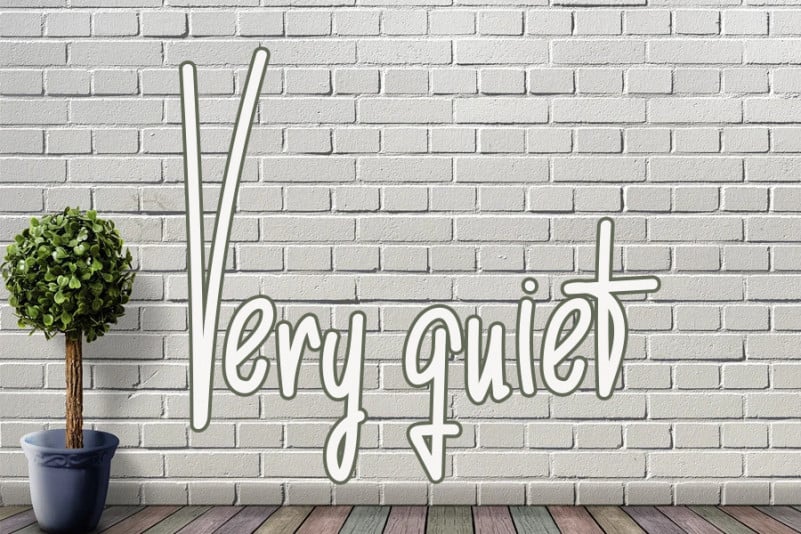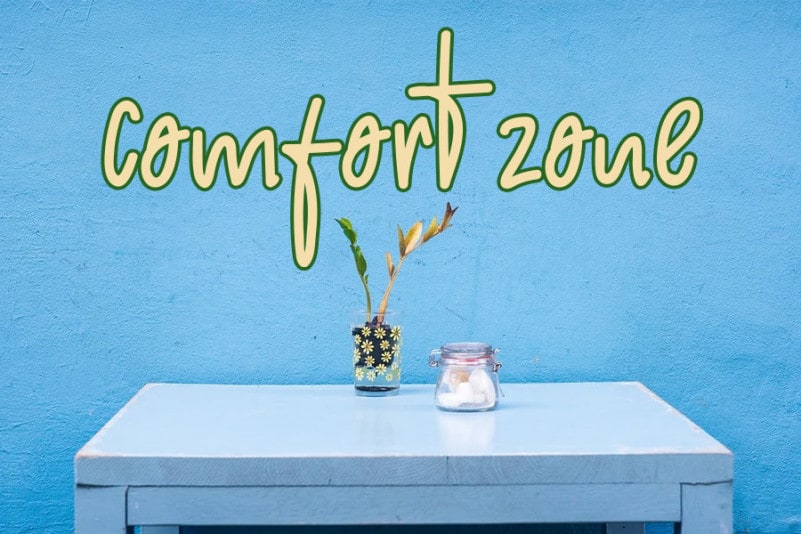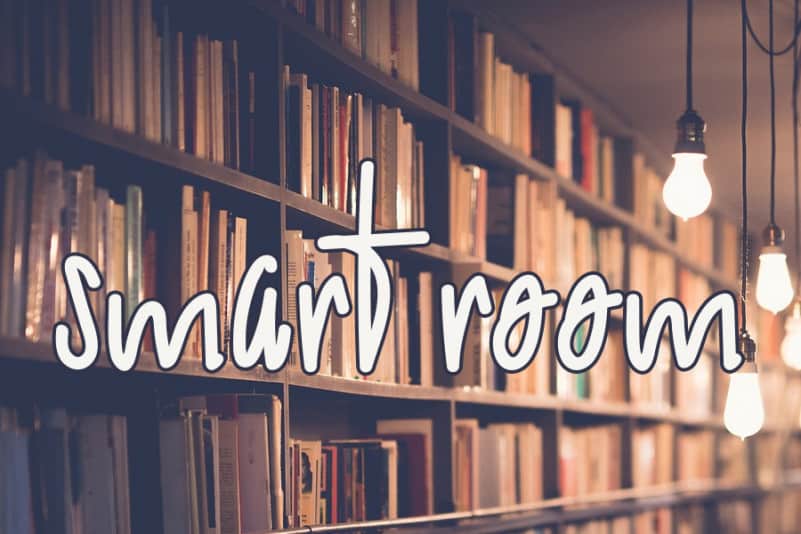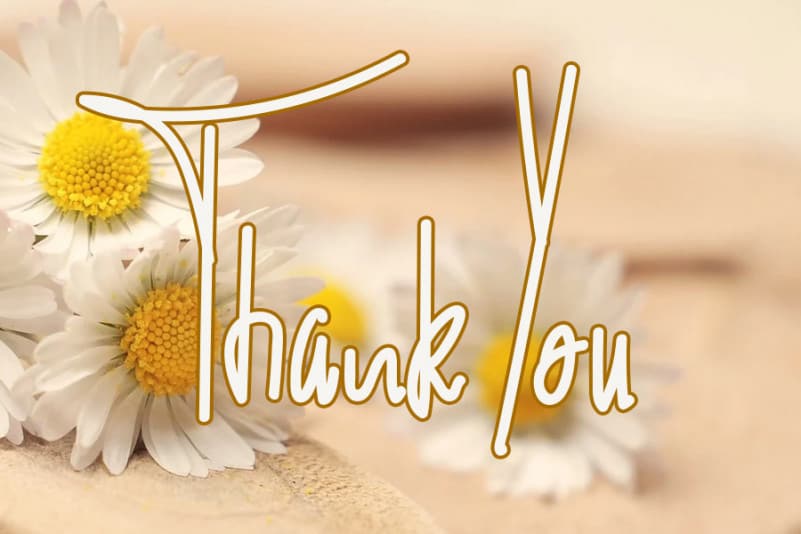
House of Love Handwritten Font
House of Love Handwritten Font is a stylish and delicate font. It has a clean, thin and smooth vibe and it will be a hit for any design that you want to add it to.
House of Love Handwritten Font is a very talented product for you to use,
Latest letters that can be used for various products, invitations, wall hangings, weddings, and more.